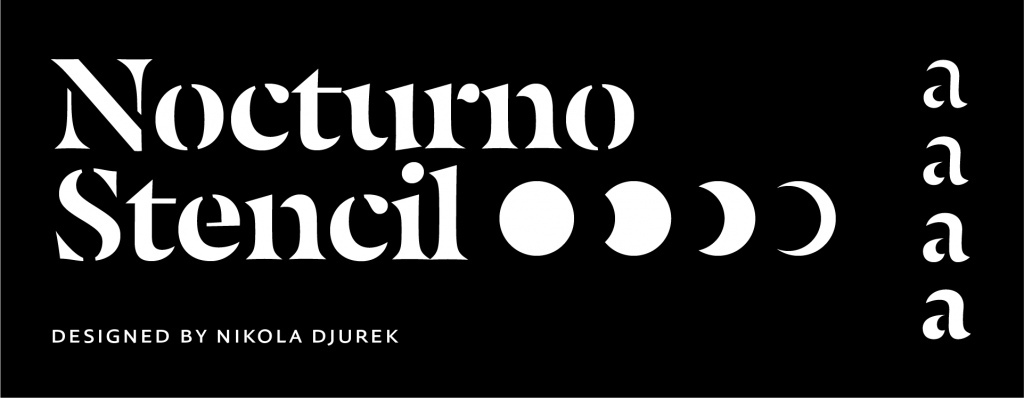
Nocturno Stencil L Font
Nocturno Stencil L Font is perfect for urban branding projects, street art inspired designs, military-themed applications, industrial signage, grunge music merchandise, warehouse aesthetics, tactical equipment branding, and edgy advertising campaigns. This commanding typeface works exceptionally well in both digital applications and print media where raw industrial power and street credibility are essential design elements.
What makes Nocturno Stencil L Font so exciting is its perfect fusion of military precision and urban street culture through bold stencil letterforms that command respect and communicate uncompromising strength. The font features distinctive cut-out characters with tactical proportions, industrial spacing, and utilitarian details that evoke the functionality of military stencils and the authenticity of street art. Its powerful personality and urban heritage make it ideal for brands seeking to establish street credibility while communicating toughness, reliability, and no-nonsense functionality to audiences who value authentic urban culture.
The Nocturno Stencil L Font family includes multiple weight variations with different stencil intensities, along with distressed alternates and industrial ornamental elements. Each style maintains the typeface's stencil character while offering comprehensive character sets including tactical numerals, military-inspired punctuation marks, and special symbols designed to enhance urban communications and industrial branding efforts across various street contexts.
This extraordinary typeface represents the perfect convergence of military functionality and urban design aesthetics for fashion and lifestyle industries. Whether you're developing streetwear brand identities, creating urban music promotions, or designing tactical equipment marketing, Nocturno Stencil L Font Free Download delivers the street authenticity and versatility needed to connect with urban audiences. The font's military heritage makes it particularly effective for streetwear brands, urban music labels, military surplus stores, and businesses celebrating authentic street culture and industrial strength.
The precisely engineered stencil construction and optimized urban performance in Nocturno Stencil L Font ensure maximum street impact while maintaining clear communication across all industrial applications. Its commanding presence makes it ideal for urban branding, street marketing campaigns, and tactical communications where its full military character can create unforgettable impressions and establish immediate association with strength, authenticity, and uncompromising urban credibility.